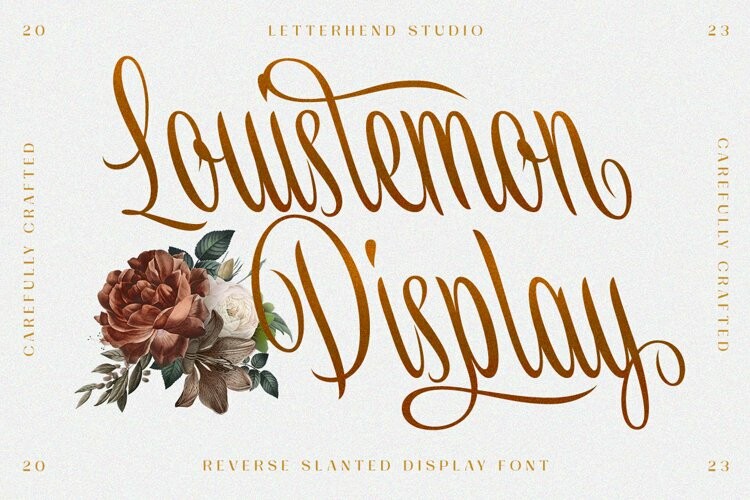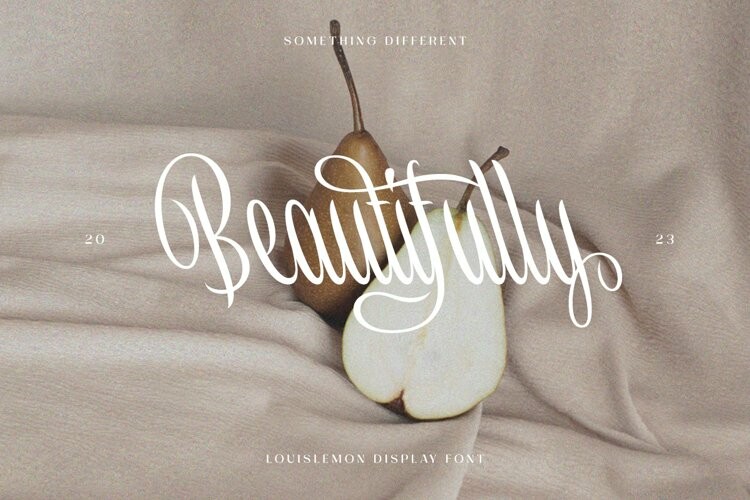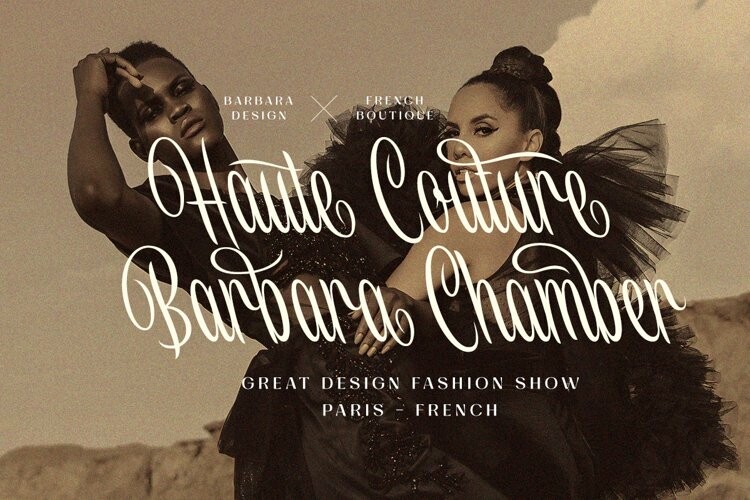
Louislemon Font
Louislemon FontIntroducing, Louislemon Display – a unique display script with a reverse slant style. The unusual look of the script makes this typeface one of a kind. This type of font perfectly made to be applied especially in logo, and the other various formal forms such as invitations, labels, logos, magazines, books, greeting / wedding cards, packaging, fashion, make up, stationery, novels, labels or any type of advertising purpose.